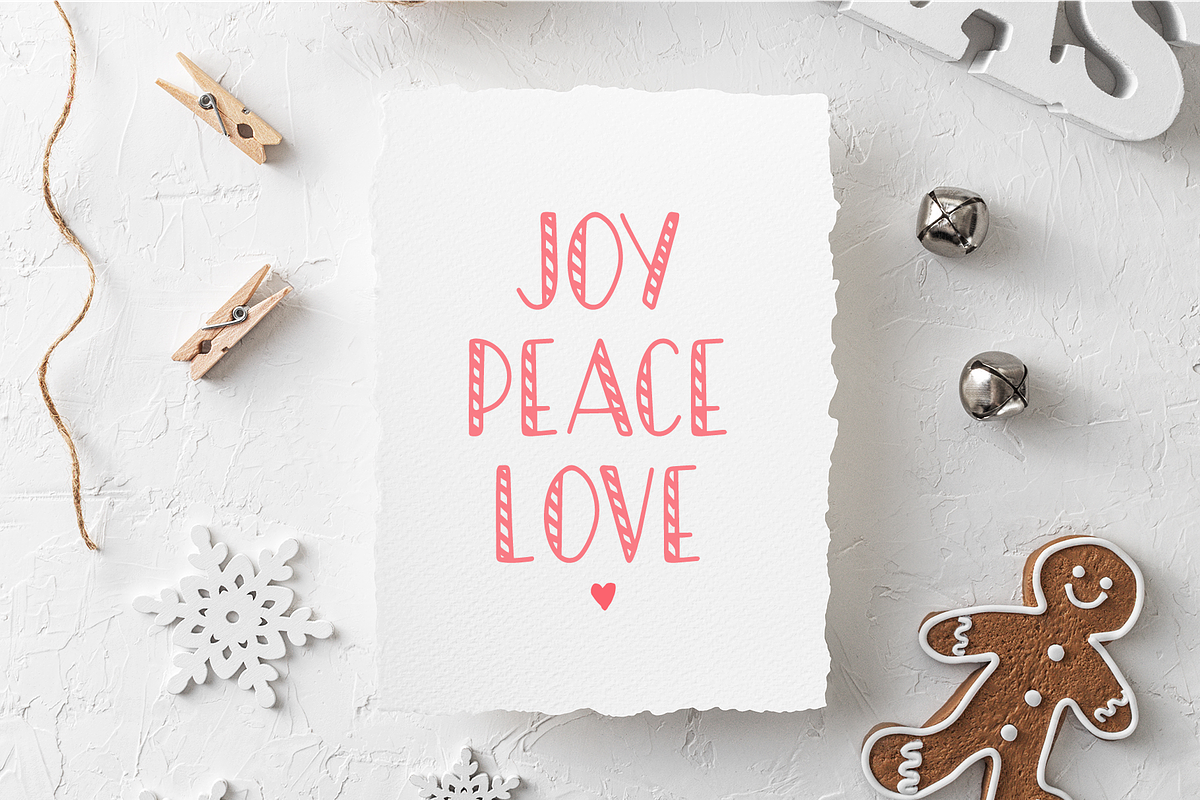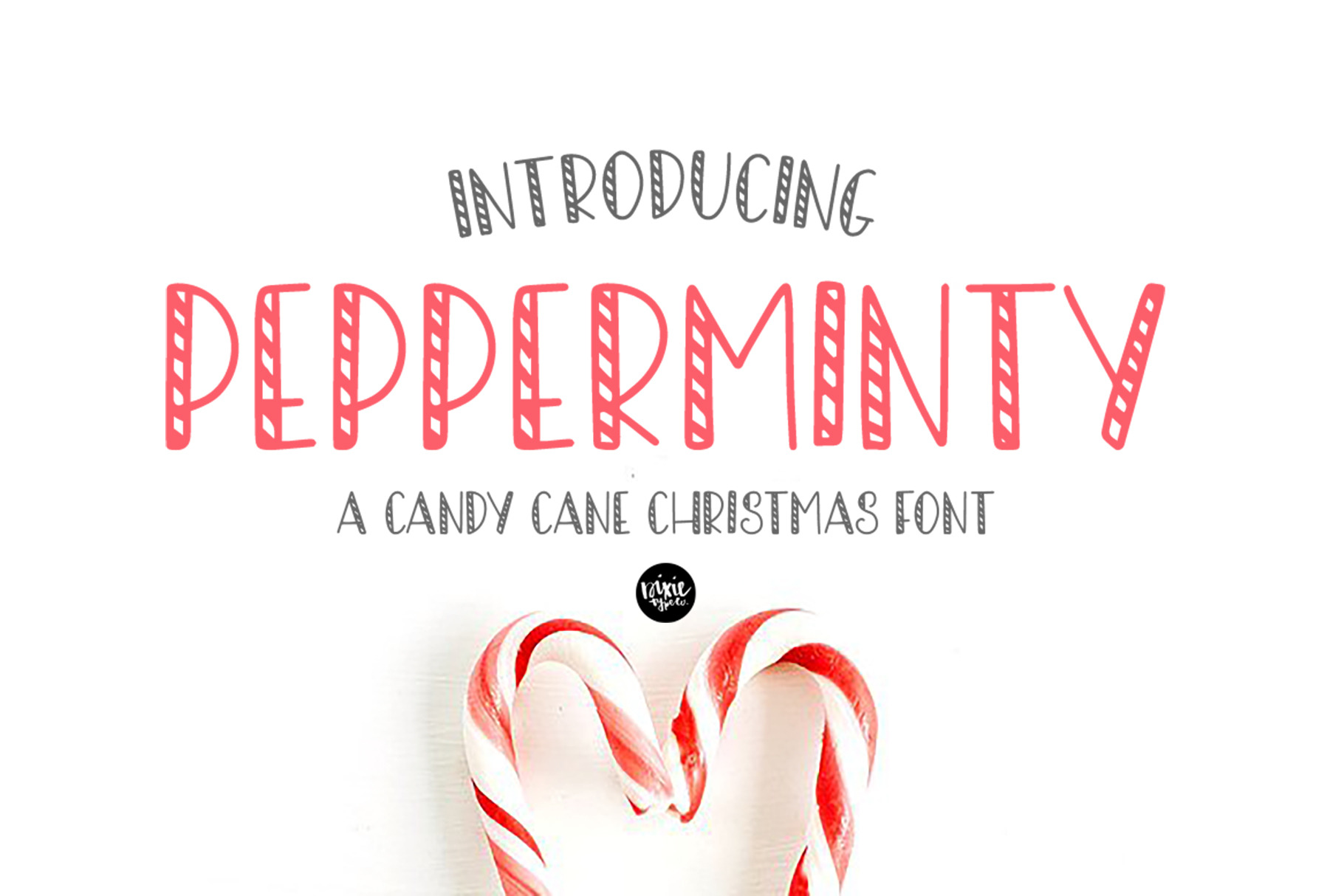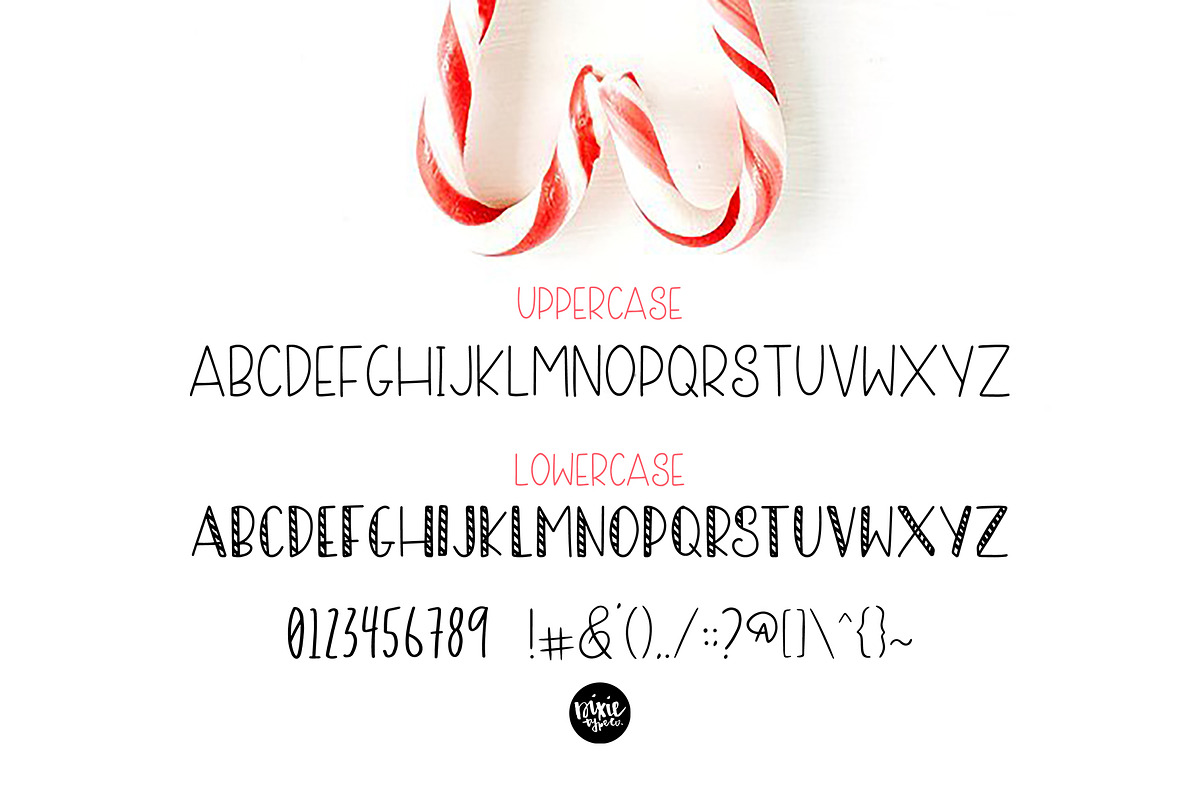
PEPPERMINTY CandyCane Christmas Font
"Pepperminty" a Candy Cane Christmas font
{ A typographic font hand lettered with love by Dixie Type Co. }
Includes an installable .OTF file. Font will be titled DTCPepperminty in your library. Pepperminty is great for your holiday projects. Use it for Christmas cards, Christmas crafts for decor and more! This font includes numbers and basic punctuation. UPPERCASE characters in this font are (matching) basic sans letters, and lowercase characters provide the candy cane letters.